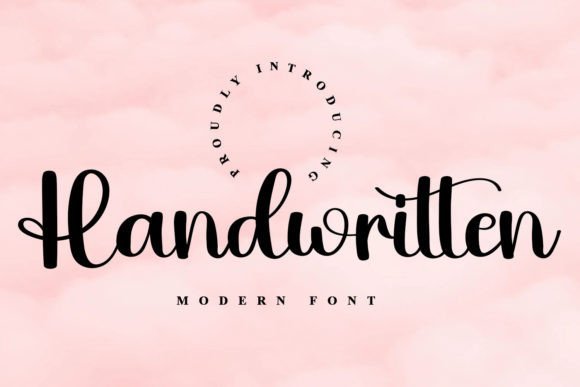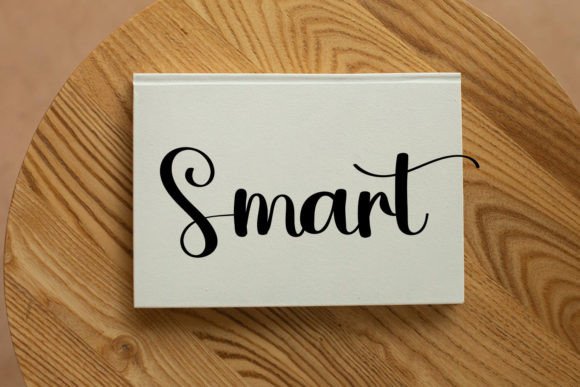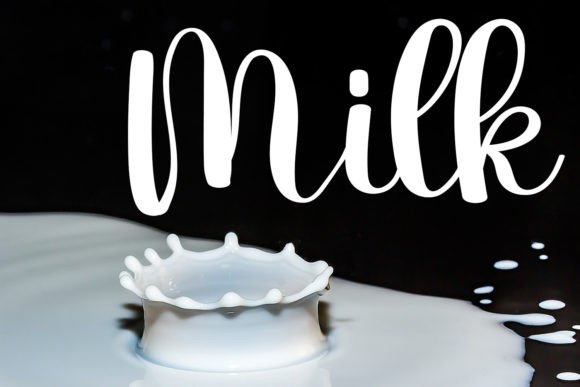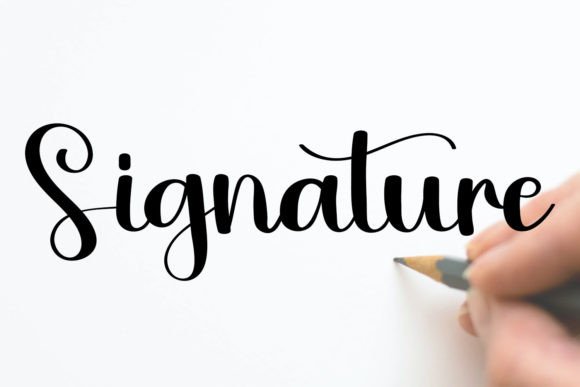
The Perfect Blend of Creativity and Style: Handwritten Font
Have you ever been brainstorming ideas for a project, and suddenly a spark of creativity hits you? Maybe it’s the perfect phrase, a unique design concept, or a font that perfectly captures the essence of your vision. For me, that spark often comes in the form of the Handwritten Font – a fresh and beautiful typeface that instantly elevates any design.
As a versatile font, Handwritten is perfect for a wide range of design purposes, from eye-catching banners and social media graphics to elegant invitations and cards. Its unique, handwritten style adds a personal touch to any project, making it stand out from the crowd. For designers, the Handwritten Font is a valuable tool in their creative arsenal, offering endless possibilities for self-expression and creativity.
Handwritten Font Key Features
- Font Style: A unique, handwritten font with varying line widths, subtle imperfections, and organic texture, giving it a personal and artistic feel.
- Character Set: Includes a comprehensive set of characters, including Latin, Cyrillic, and Greek alphabets, as well as punctuation and symbols.
- Language Support: Supports over 200 languages, making it a versatile choice for multilingual designs and applications.
Handwritten Font Review
I’ve worked with the Handwritten Font, and I must say, it’s got its charm. ✨ It’s perfect for adding a personal touch to your designs, especially for projects that require a more intimate or casual feel. The font’s imperfections and flourishes make it ideal for creating a sense of handmade quality.
One of the best things about the Handwritten Font is its versatility. ✨ You can use it for a wide range of projects, from branding and advertising to digital products and print materials. The font’s legibility is also surprisingly good, considering its handwritten nature.
However, there are some limitations to consider. ⚠️ The font’s irregularities can sometimes make it difficult to read, especially at smaller font sizes. Additionally, the font may not be suitable for projects that require a more formal or professional tone.
Overall, I’d say the Handwritten Font is a great addition to any designer’s toolkit. It’s a unique and creative solution for projects that need a personal touch. Just be mindful of its limitations and use it wisely.
- Perfect for adding a personal touch to designs
- Versatile and suitable for a wide range of projects
- Legible, despite its handwritten nature
- May not be suitable for formal or professional projects
- Can be difficult to read at smaller font sizes
Tips for Getting the Most Out of Handwritten Fonts
Experiment with different font sizes, colors, and styles to achieve a unique look.
Combine handwritten fonts with other design elements, such as illustrations or graphics, to create a visually appealing design.
Use handwritten fonts to add a personal touch to your designs, such as in invitations, posters, or social media graphics.
Handwritten fonts are commonly used in:
Creative projects, such as art journals or scrapbook pages.
Wedding invitations or event invitations.
Social media graphics, such as Instagram posts or Facebook ads.
Alternatives to Handwritten Font for Designers
1. Brush Script Font
Brush Script Font is a cursive font that mimics the look of handwritten script. It is ideal for use in titles, headings, and short paragraphs where a personal touch is desired. When to use: When you want to add a touch of elegance and sophistication to your design. Compared to Handwritten Font, Brush Script Font is more polished and refined.
Q: Can I customize the Handwritten Font to fit my specific design needs?